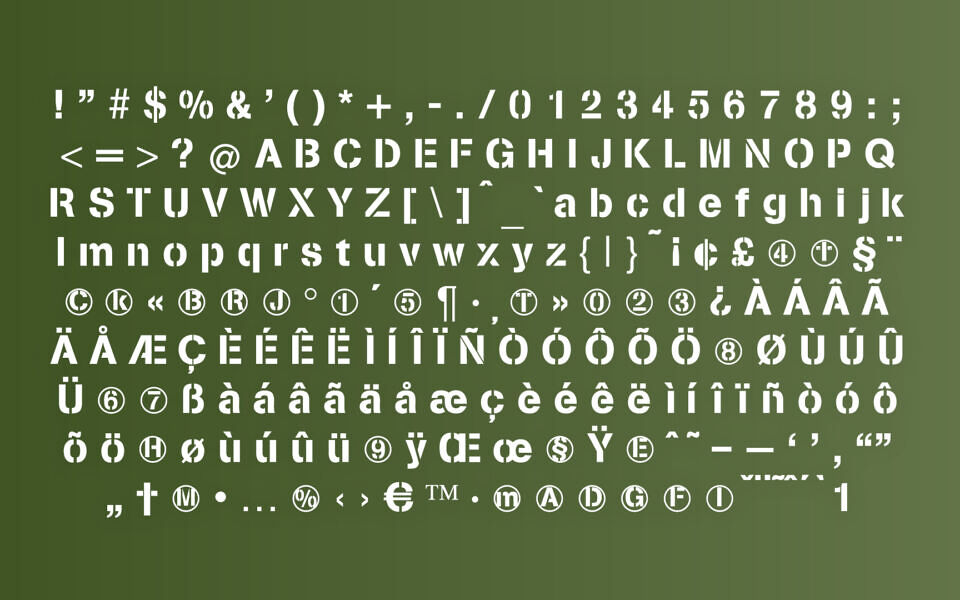
Stencilia Font
Stencilia, designed by Manfred Klein, is a classic stencil-style typeface that evokes a rugged, industrial aesthetic.
Perfect for military-inspired projects, signage, or designs requiring a raw, utilitarian look, this font features clean, segmented letterforms characteristic of traditional stencil cutting. Stencilia offers a versatile and bold typographic solution, providing a practical yet distinctively “army” feel to any graphic project.
Designed by: Manfred Klein